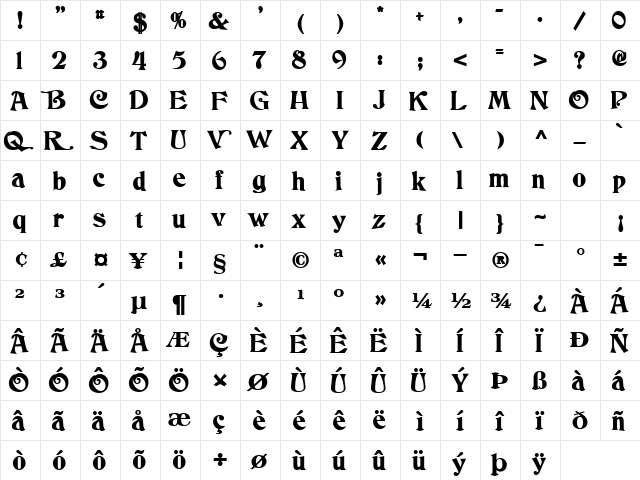
DancingComfort39 Bold
Design Context for DancingComfort39 Typeface
DancingComfort39 is a composed and adaptable typeface that performs quietly and consistently across a wide range of design contexts. Its bold stroke weight gives it real presence on the page.